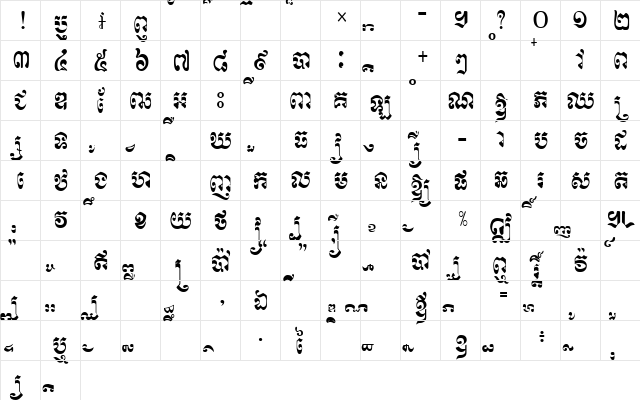
Rachany New Normal
Design Context for Rachany New Typeface
Rachany New offers clean, dependable letterforms without strong stylistic allegiance, making it a practical choice for designers who need flexibility.
Pro Tip: Use Rachany New in both headline and body roles to test its range before committing to a single application.